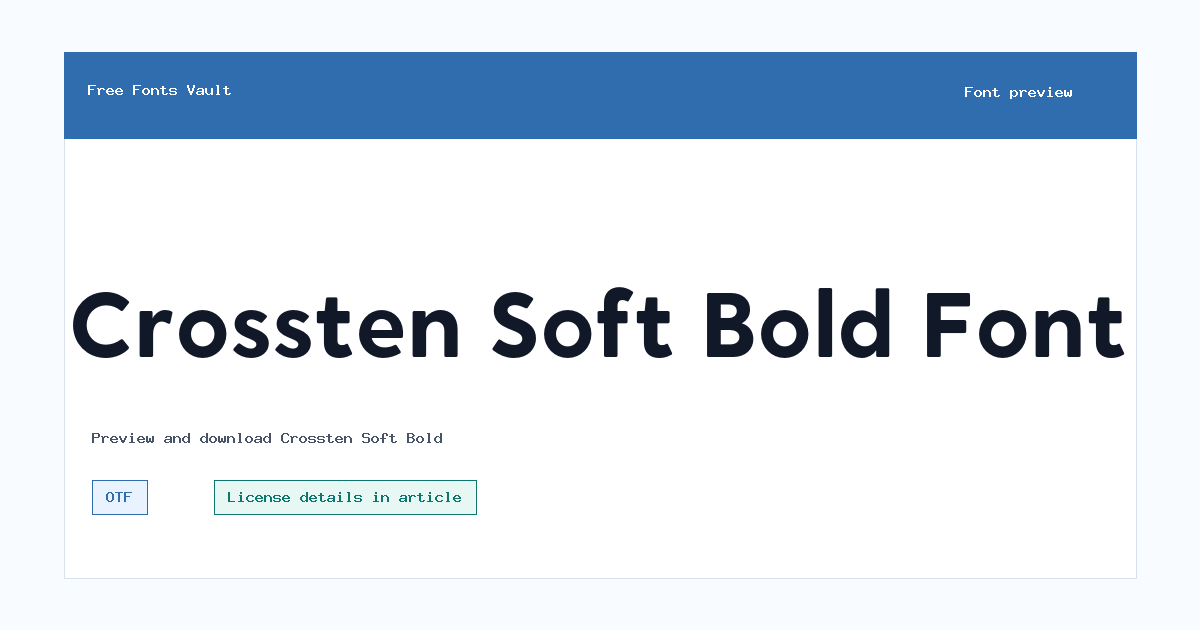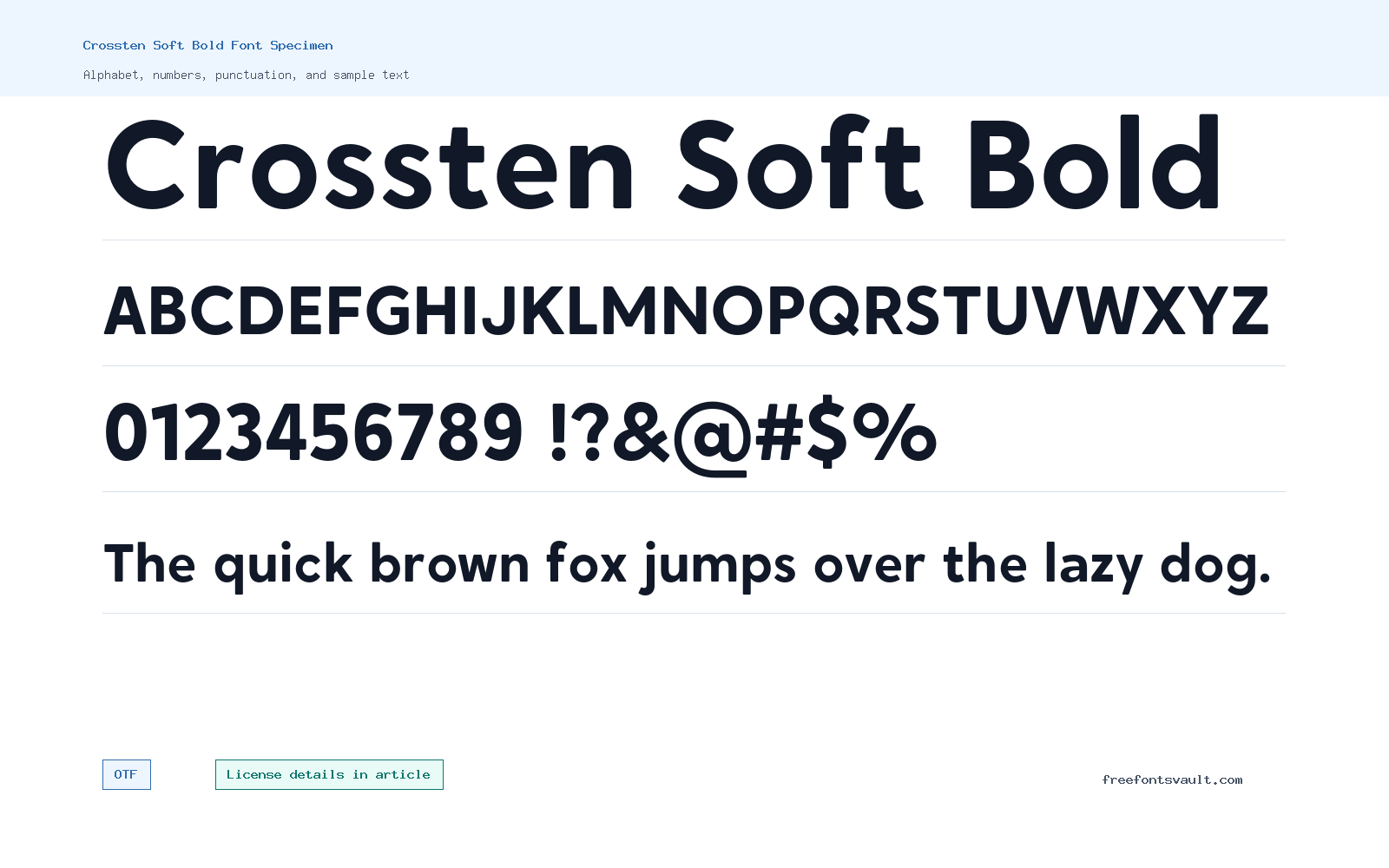
Crossten Soft Bold
- Designer Emre Guven
- Foundry Emre Güven
Crossten Soft Bold font.
Crossten Soft Bold is a rounded bold display font with a soft, approachable look. Its heavy weight gives short words strong presence while the softened edges keep the tone friendly rather than harsh.
About Crossten Soft Bold
Crossten Soft Bold works well when you need a bold sans serif style that feels modern but not too sharp. The 700 weight is useful for titles, labels, buttons, quote graphics, and compact branding text where the letters need to stand out quickly. Because the design is rounded, it can feel warmer than a standard geometric bold font, especially in playful or casual layouts.
Use the preview tool to test the exact words you plan to set, especially if your design includes long headings, tight spacing, or mixed-case text. Bold rounded fonts often look best in short lines, so try a few sizes before downloading. For longer copy, pair Crossten Soft Bold with a simpler regular-weight sans serif to keep reading easy.
Crossten Soft Bold is especially useful when a design needs the confidence of a bold sans serif but the mood should stay relaxed. It can suit friendly tech graphics, children-focused layouts, food labels, app promos, soft product branding, and social templates where sharp corners might feel too formal. Keep the number of bold elements limited so the rounded weight stays intentional.
- Bold 700 weight with softened letter shapes for strong but friendly display text
- Rounded bold personality that works well for warm, modern, and approachable display layouts
- Headlines, poster titles, social media graphics, and web hero text
- Friendly logos, badges, packaging labels, app UI accents, and short callouts
- Friendly tech headers, soft product graphics, playful labels, and bold but approachable call-to-action text
Crossten Soft Bold is credited to Emre Güven.
For best results, use Crossten Soft Bold in short display settings and give the letters enough spacing around them. It can become dense in long paragraphs, so pair it with a clean text font for body copy.
What kind of font is Crossten Soft Bold?
Crossten Soft Bold is a bold rounded sans serif style. It is best suited for display use such as headings, logos, posters, labels, and short graphic text.
Is Crossten Soft Bold good for body text?
It is better for short text than long reading. The bold weight is useful for emphasis, but long paragraphs will usually be easier to read in a lighter, simpler font.
Who designed Crossten Soft Bold?
The font is credited to Emre Güven.
What makes Crossten Soft Bold different from a sharper bold font?
The softened shapes make the heavy weight feel warmer and more approachable, which can help friendly brands, labels, and social graphics.